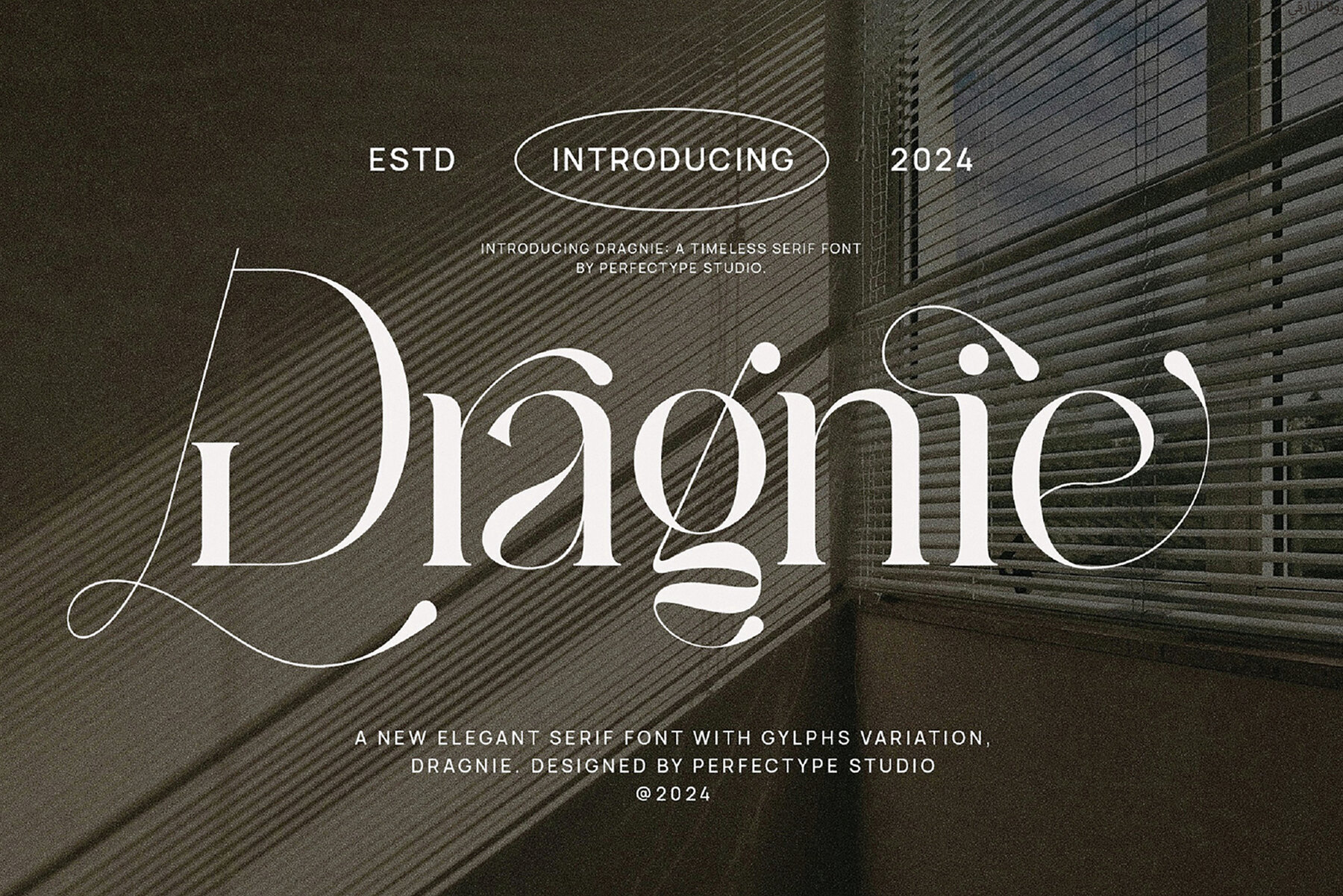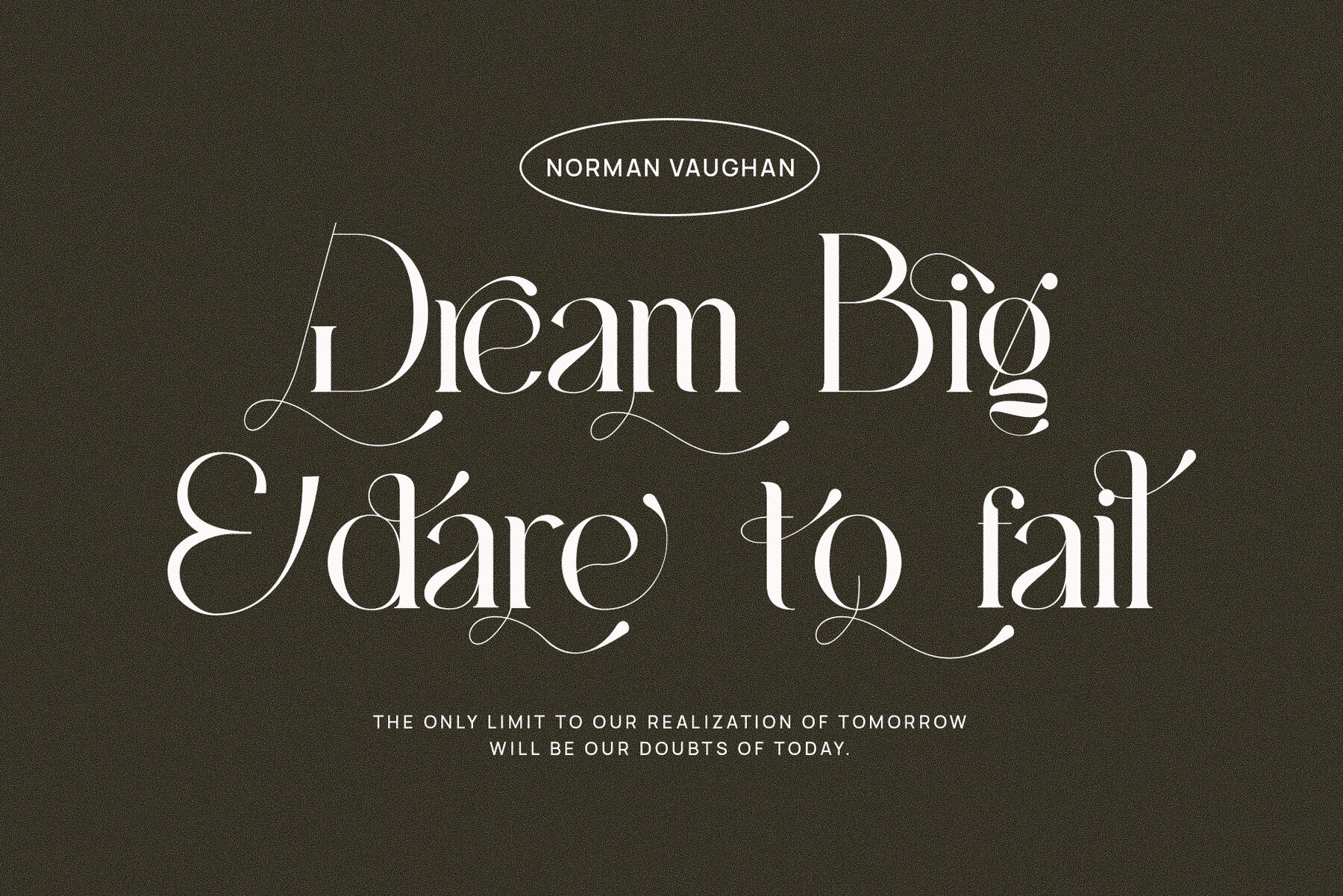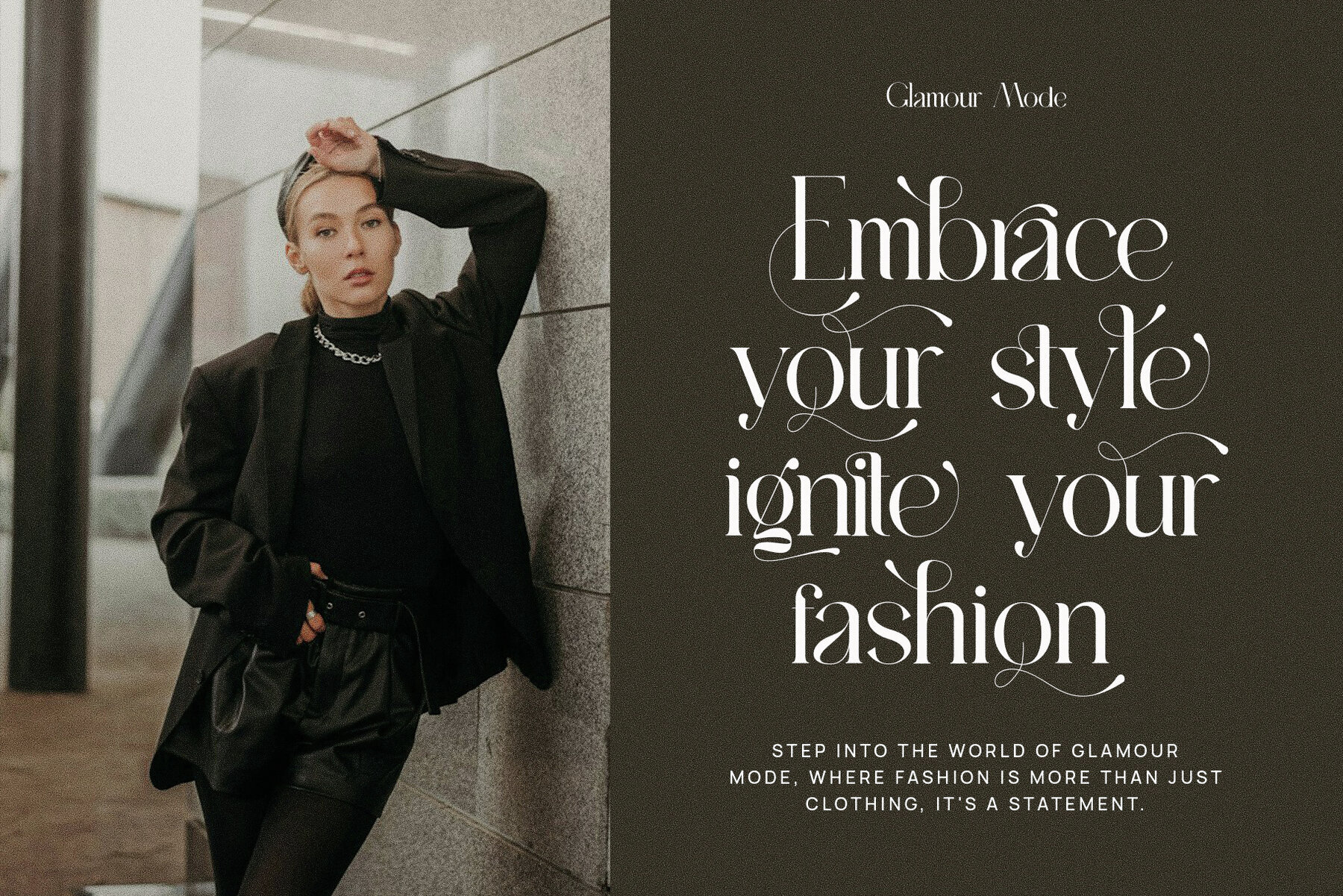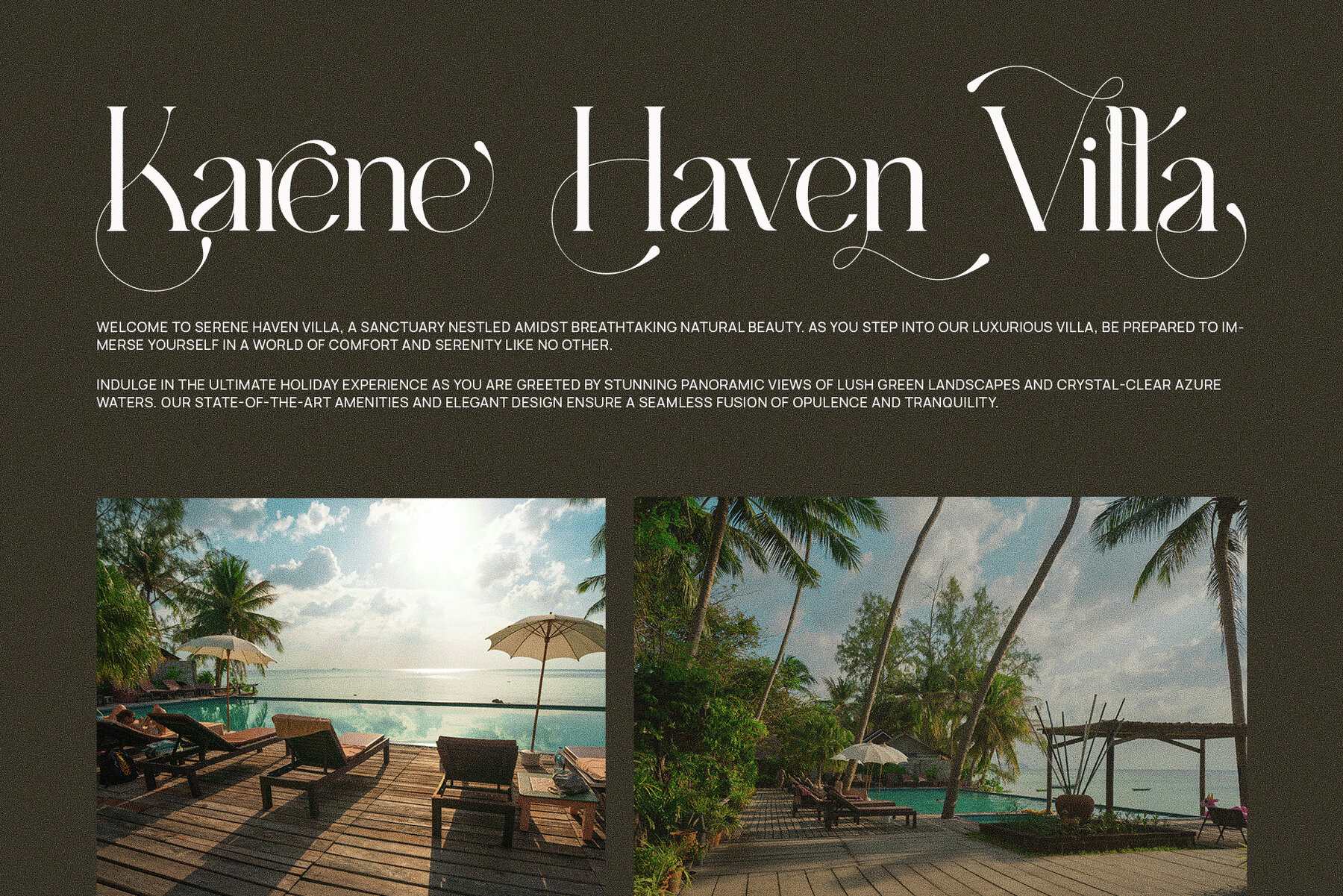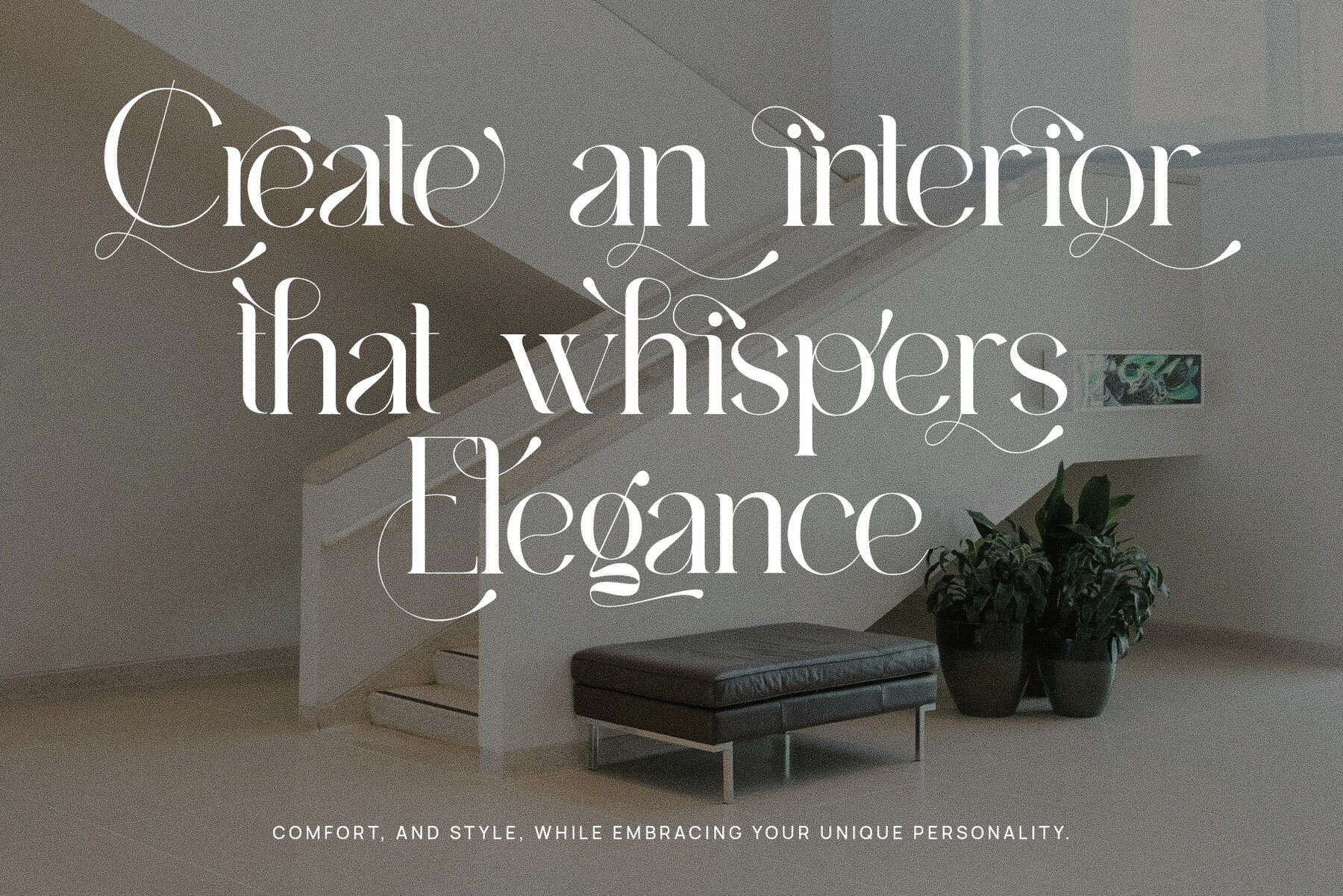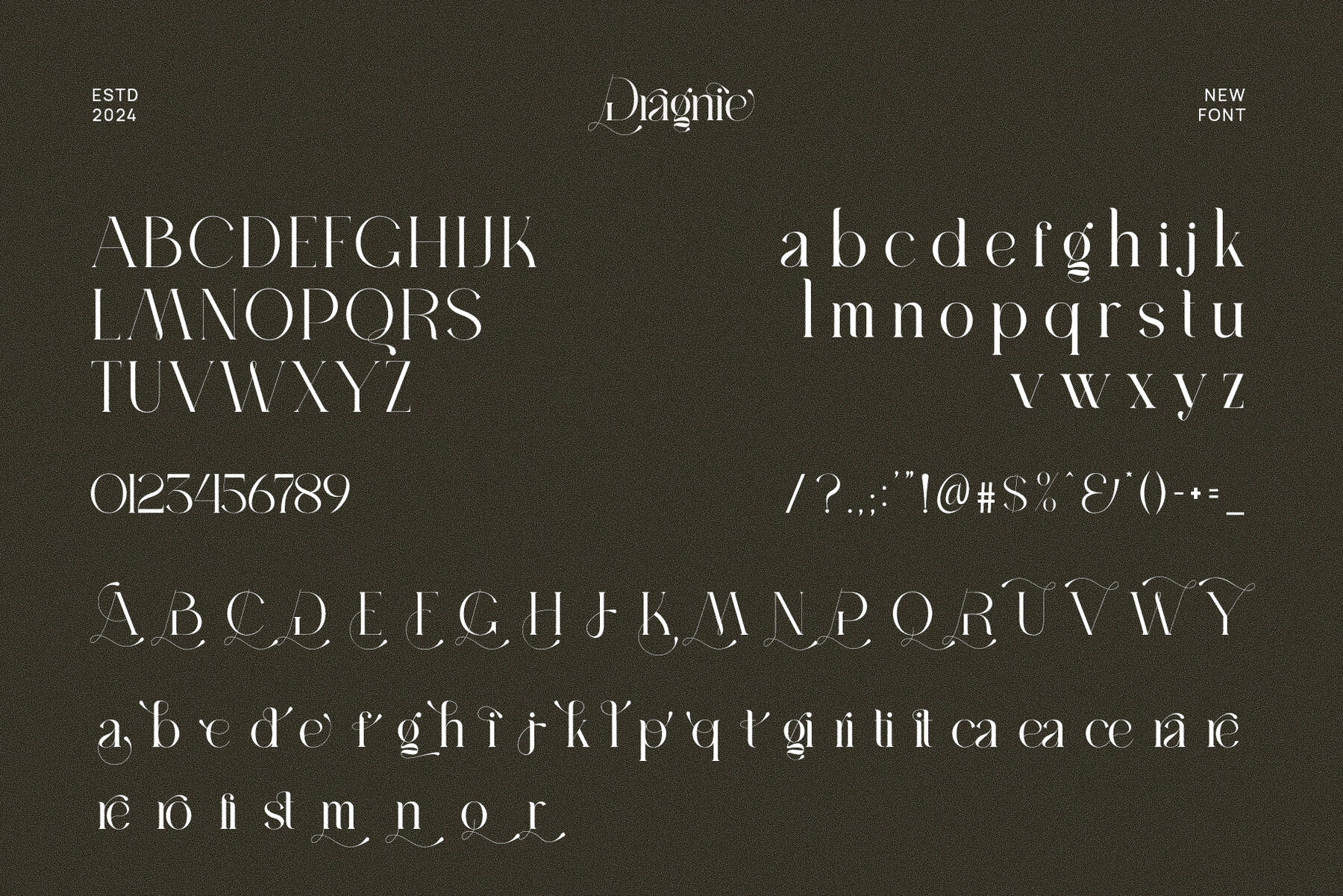
Introducing Dragnie Elegant Serif Font, a harmonious fusion of contemporary style and classic sophistication. Designed with elegance in mind, Dragnie features refined serif edges and uniquely crafted letterforms that instantly capture attention. Its distinctive shape and well-balanced structure give it a modern, luxurious feel while maintaining a timeless appeal. Perfect for any creative project that requires a blend of professionalism and charm, this font is ideal for high-end branding, logos, and editorial design. What sets Dragnie apart is its beautiful ligatures and alternate characters, offering endless possibilities for customization. Whether you're crafting a logo for a luxury brand, designing elegant packaging, or enhancing the aesthetic of a website, Dragnie brings a touch of refinement to every word. The font’s versatile style makes it suitable for a wide range of industries, from upscale boutiques and fine dining to fashion magazines and premium product promotions. Dragnie is as functional as it is visually striking. Its well-designed serifs enhance readability, making it suitable for both headlines and body text. Its graceful curves and refined details allow it to shine in both print and digital formats, ensuring your designs stand out in every medium. Whether you're creating sophisticated advertisements, stylish magazine layouts, or upscale websites, Dragnie offers the perfect balance of modern elegance and readability. Elevate your creative projects with Dragnie Elegant Serif Font — a font that exudes luxury, versatility, and style, helping your designs leave a lasting impression.